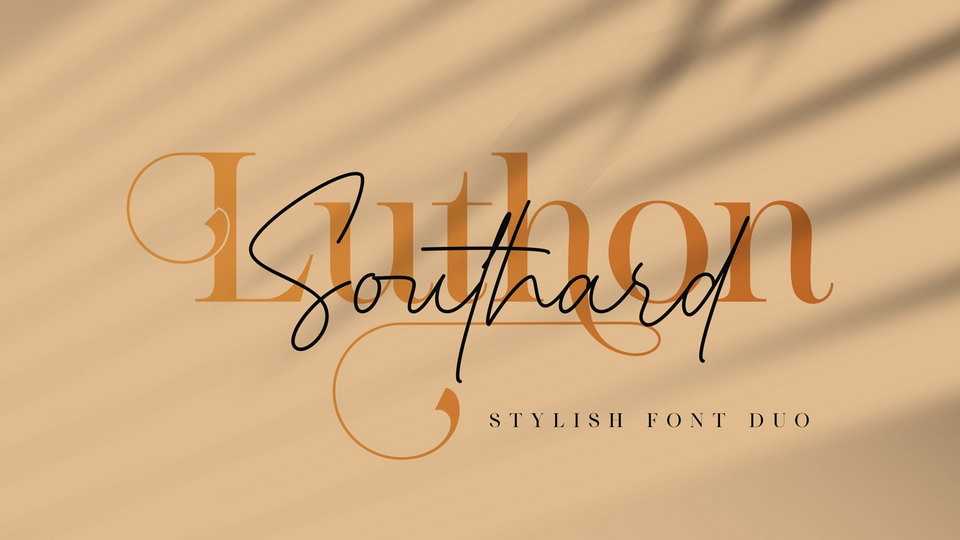
Luthon Southard Font Duo › Fontesk – Download Grátis
Download Luthon Southard typeface, a spectacular duo font featuring stylish serif and monoline script. Luthon Southard is perfect for product packaging, branding project, magazine, social media, and much more.
Designer: Lemonthe